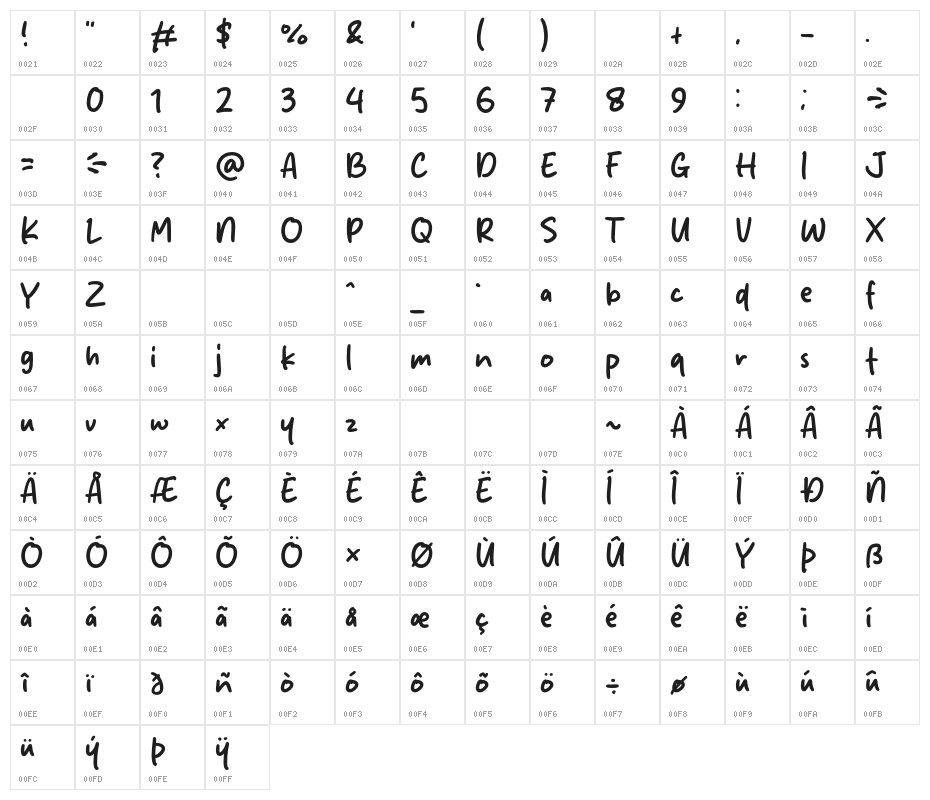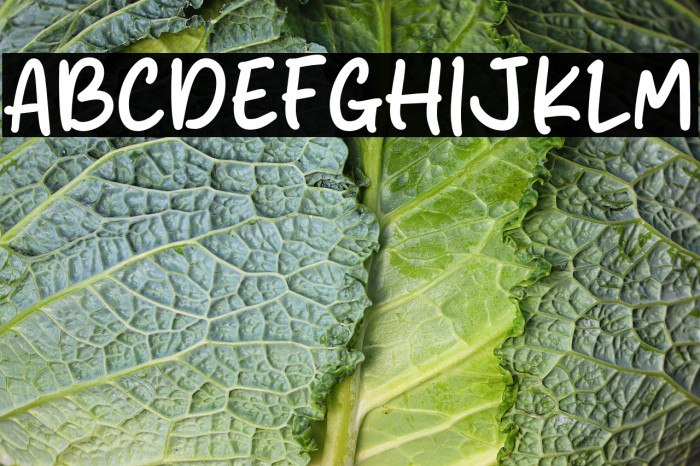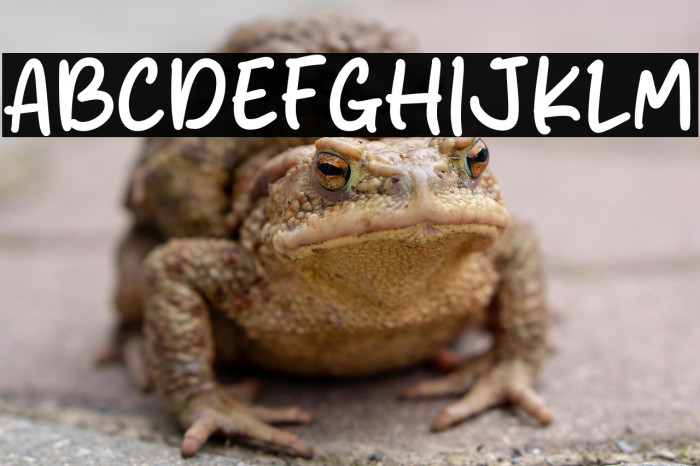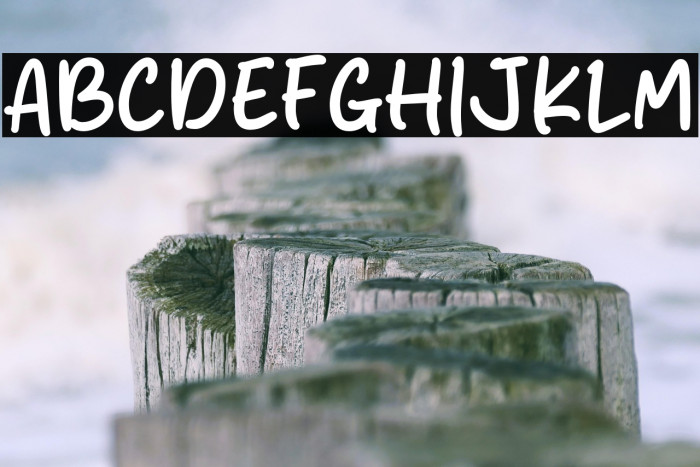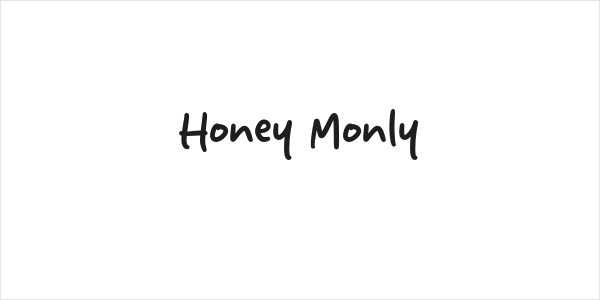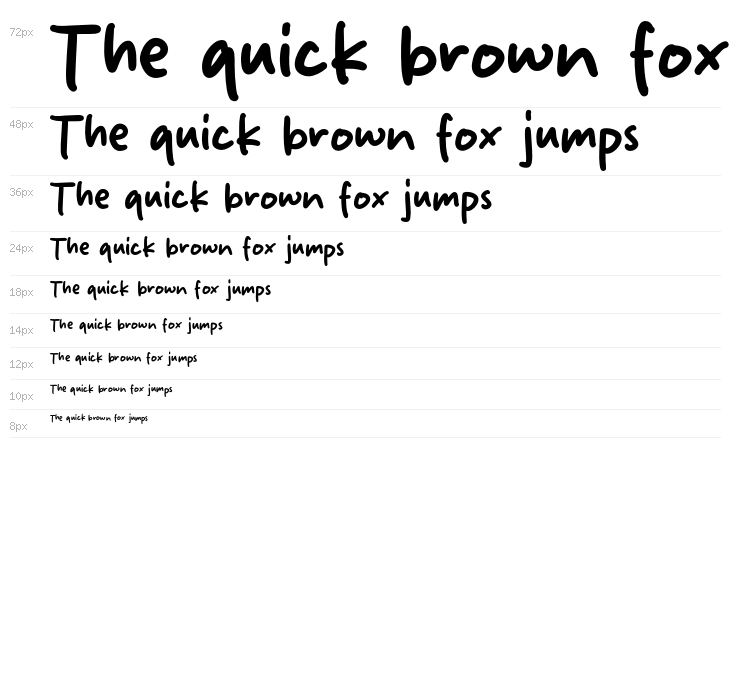
Honey Monly Font
Honey Monly Description
A playful, rounded handwritten typeface with consistent stroke width, casual letterforms, and a friendly appearance. The characters are slightly irregular, mimicking natural handwriting, and the overall look is informal and approachable.
| Overall Style | Playful, Informal, Friendly |
| Use Case | Headlines, Short text, Quotes, Informal branding |
| Proposed Projects | ChildrenΓ’β¬β’s books, greeting cards, social media graphics, informal branding, posters. |